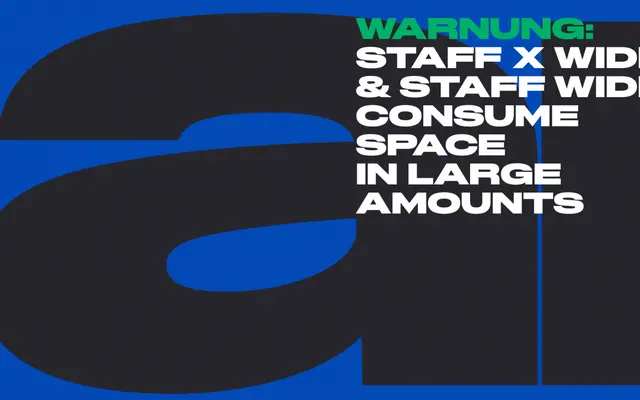
Staff X Wide
R-Typography · Rui Abreu · 2019
The extra-wide cut of Rui Abreu's Staff family, a neo-grotesque with rigid geometry and subtly offbeat detailing across 12 styles.
Staff X Wide sits at the broadest end of an 82-style family spanning seven widths and six weights with matching 14-degree slanted italics. Letterforms follow the neo-grotesque tradition but carry distinctive touches: a pointed apex on the M, an enlarged bowl on the a, and a vertically-cut tail on the Q. Terminals are cut horizontally at a consistent height across letters and weights, and vertical metrics are shared across the entire family.
Staff X Wide is explicitly described as neo-grotesque in tradition, with mechanical, dry letterforms and structural rigidity characteristic of that genre. The X Wide variant is the broadest width in a large multi-width family.